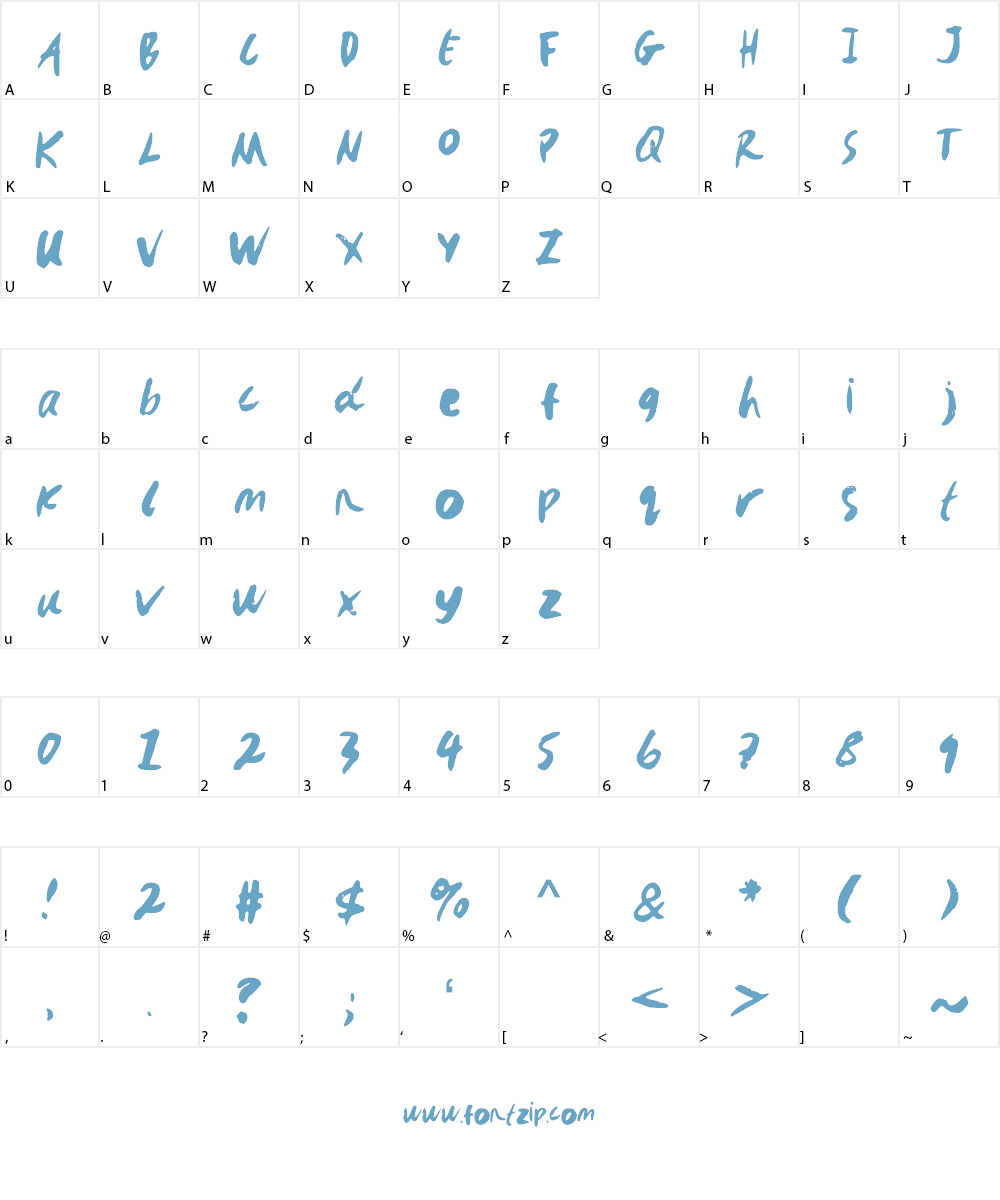
I was always searching for an inky messy handwritten font! So I made my own. Great for posters and breaking up block text. Works beautifully with a sans serif. Helvetica for example.